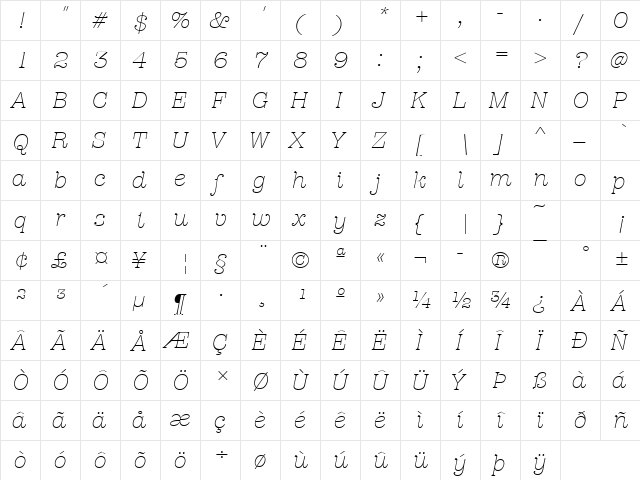
AmericanTypItcTLig Italic Font Preview
AmericanTypItcTLig Italic
Design Context for AmericanTypItcTLig Typeface
AmericanTypItcTLig offers clean, dependable letterforms without strong stylistic allegiance, making it a practical choice for designers who need flexibility. The dynamic lean of this cut emphasises speed and emphasis in any layout.
Pro Tip: Try AmericanTypItcTLig for annotation and caption copy alongside an upright companion — the contrast in angle creates a dynamic but ordered typographic system.